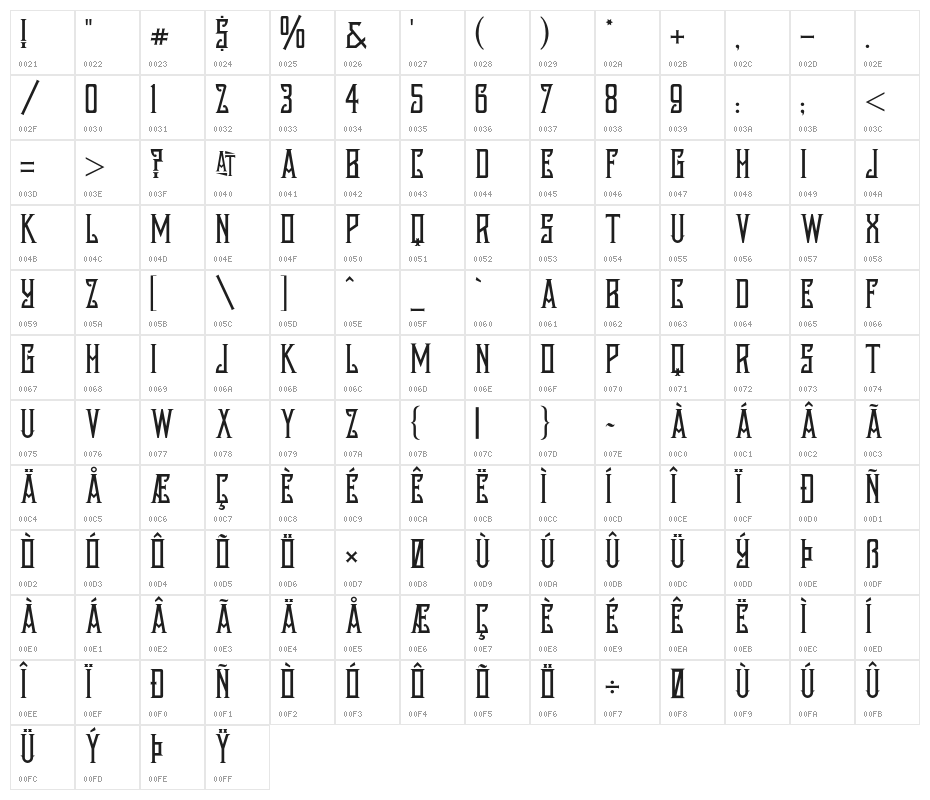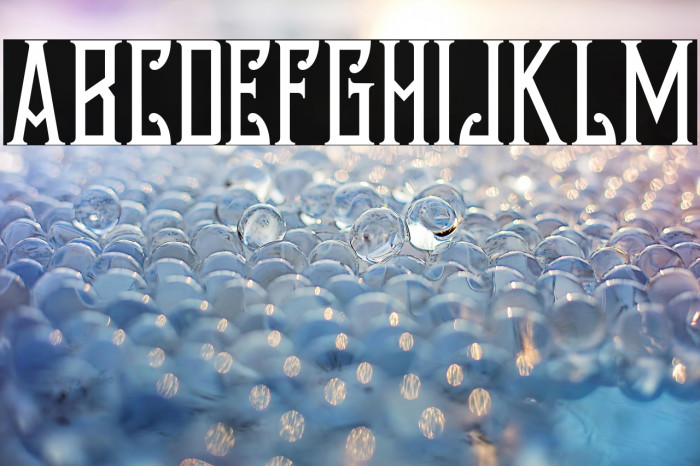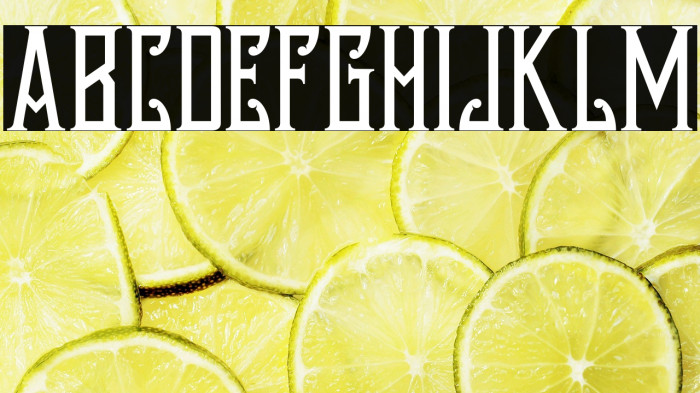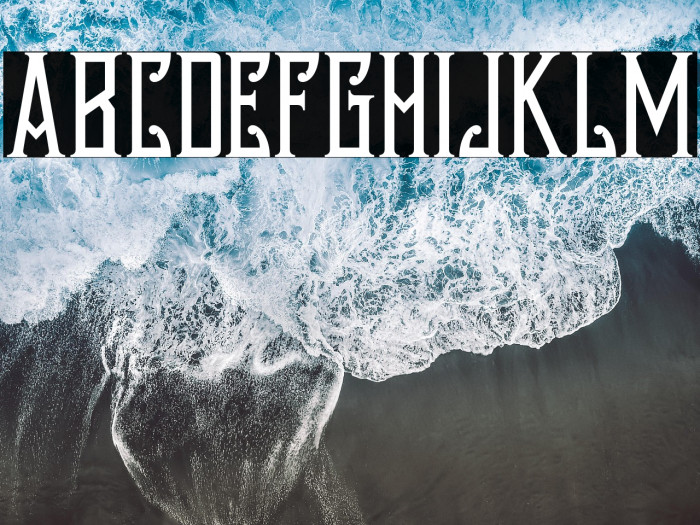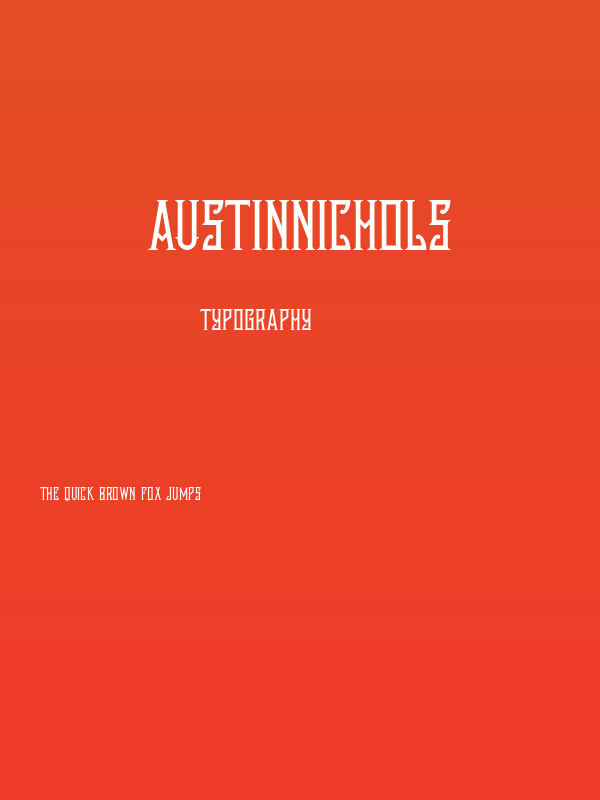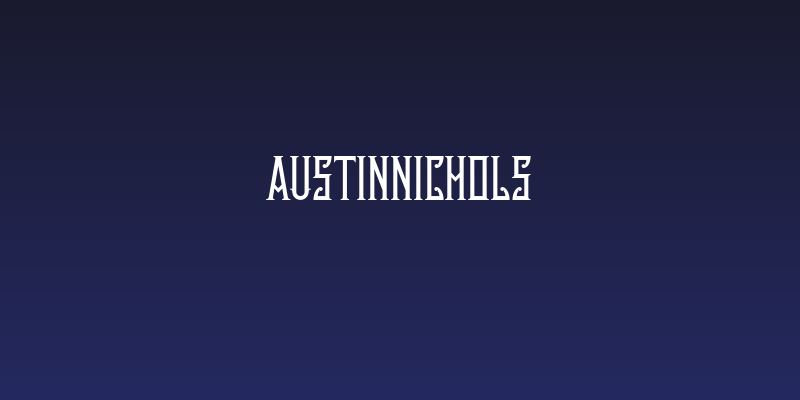
AustinNichols Font
AustinNichols Description
This font features a bold and decorative style with a unique flair in its letterforms. The characters are tall and narrow, with distinct serifs that add an ornamental touch. The uppercase letters have a strong presence, while the lowercase letters maintain the same decorative elements. Numbers and special characters are designed to match the overall aesthetic, making this font suitable for eye-catching designs. The intricate details in each character make it stand out, ideal for projects that require a bold statement.
| Proposed Projects | Ideal for posters, logos, branding, and any design that requires a striking and decorative typeface. |